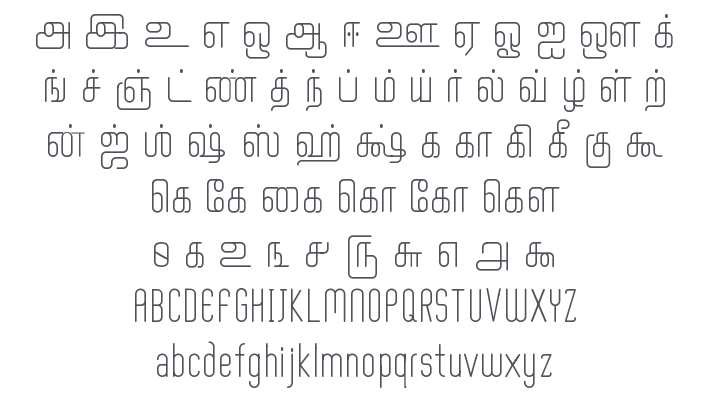
Aaram Font
by Tharique Azeez
Aaram Font
About Aaram
Aaram is a unique typeface with pizzazz and also got the geometric & neutral appearences. This font supports Tamil and Latin. Primarily designed for the screen usage but it'll make the print, awesome too. Slightly condensed design of Aaram makes it particularly effective for space economizing. It has been conceived to be most suitable for all types of texts blocks and headings. Aaram is highly legible and quite versatile and it performs nicely in small sizes.